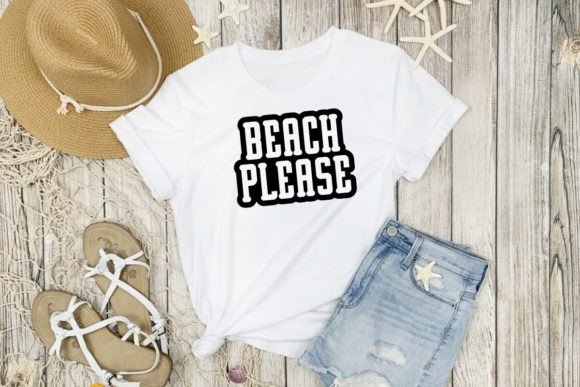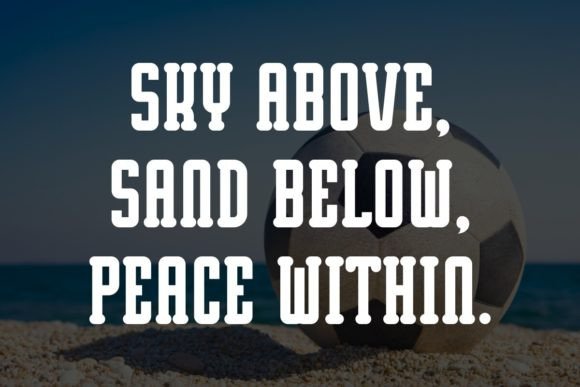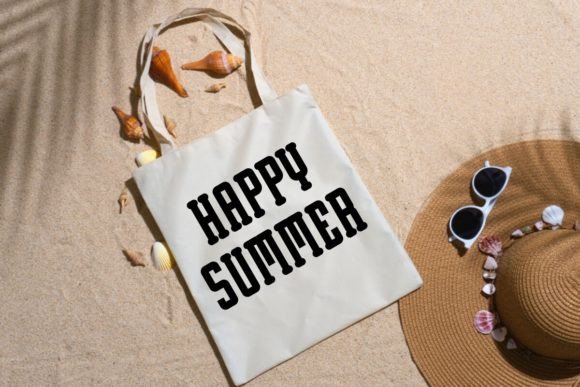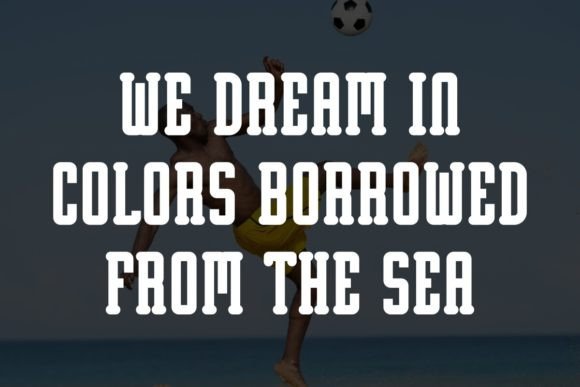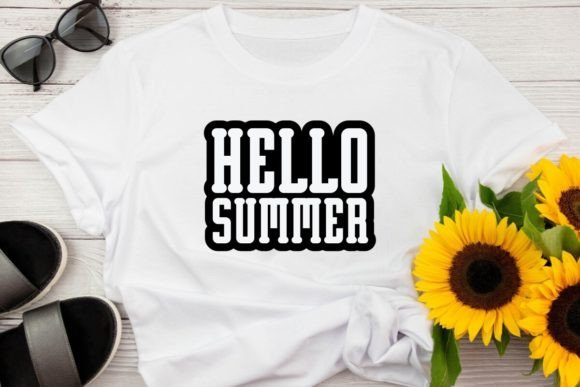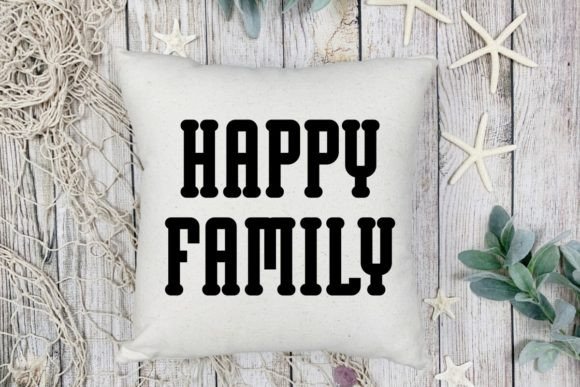
Discover the Ultimate Beach Vibes Font: Beach Soccer Font
Who hasn’t had a moment of pure creative bliss, staring at a blank canvas or screen, waiting for inspiration to strike? For me, it’s usually when I’m sipping coffee by the ocean, watching the waves roll in. And that’s exactly when I fell in love with the Beach Soccer Font – a vintage and playful slab serif font that captures the carefree spirit of the beach.
Perfect for adding a touch of nostalgia and fun to your designs, the Beach Soccer Font is a valuable addition to any designer’s toolkit. Whether you’re creating quotes, backgrounds, posters, or merchandise, this font brings a lively and captivating touch that’s sure to leave a lasting impression. With its unique blend of vintage charm and playful style, you’ll be hooked from the very first use.
Beach Soccer Font Key Features
- Font Family: Beach Soccer Font is a custom-designed font, created specifically for beach soccer and other related sports.
- Unique Characteristics: Features a unique, dynamic, and energetic design that captures the spirit of beach soccer, with bold lines, vibrant colors, and a playful feel.
Beach Soccer Font Review
Overall, I think the Beach Soccer Font is a great choice for beach-themed projects. It has a fun, laid-back vibe that captures the essence of a day at the beach. ✨ The font is highly customizable, allowing you to adjust the size, color, and even add some fun effects like shadows and glows. ✨ The font also includes a range of characters, including numerals, punctuation, and even some special beach-themed icons. ✨
- Fun, laid-back vibe
- Includes a range of characters
- May not be suitable for formal or professional projects
- Can be a bit too playful for some designs
- Lack of consistency in font weight and line height
- ⚠️ The font may not be optimized for use in smaller sizes or on low-resolution displays
While the Beach Soccer Font has some limitations, I think it’s a great choice for beach-themed projects or any project where you want to add a fun, playful touch. It’s easy to use and customize, and the results are always visually appealing. Overall, I’d give it 4 out of 5 stars.
The Beach Soccer Font is perfect for designs related to sports, summer, and beach activities. Use it for:
– Sports team branding
– Summer-themed posters
– Beach-themed invitations